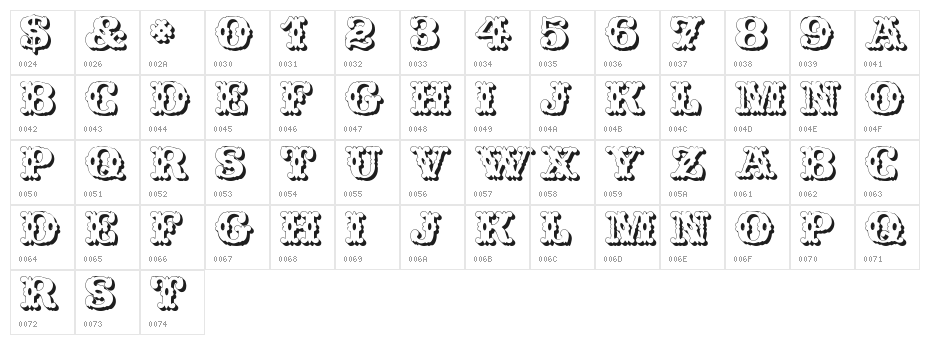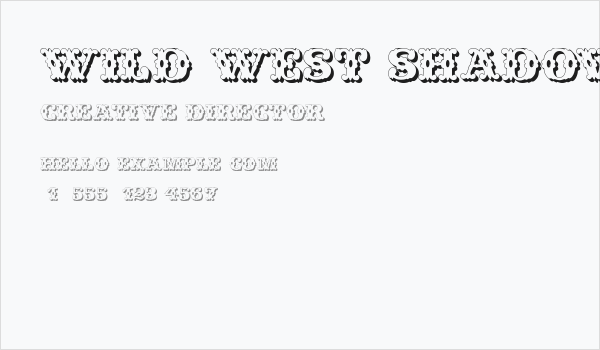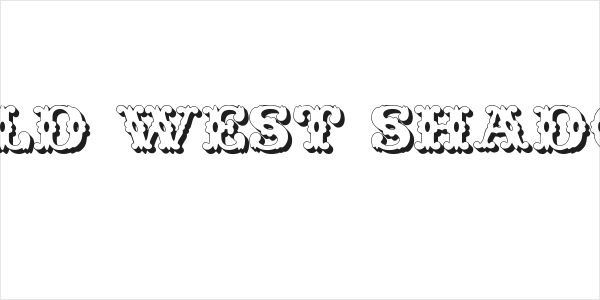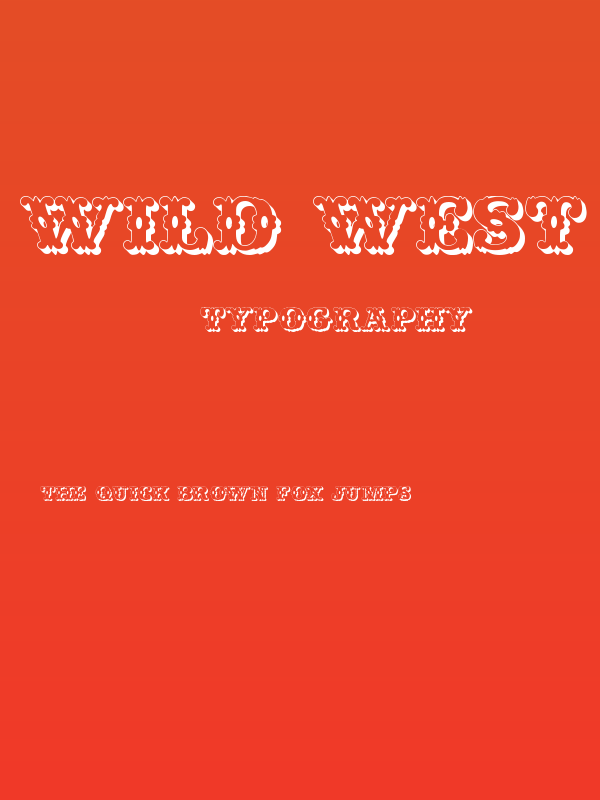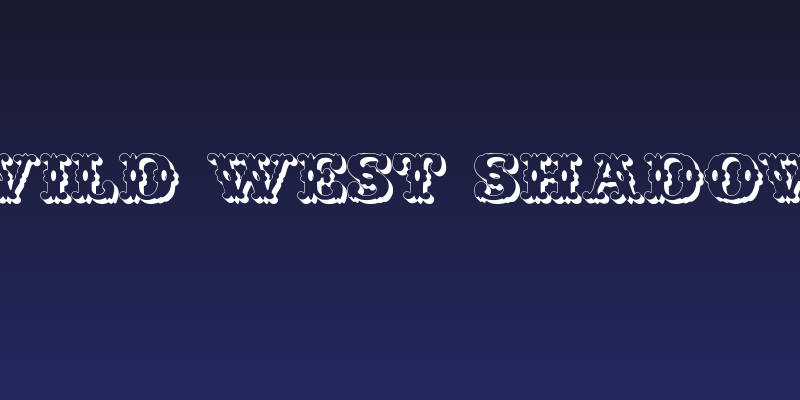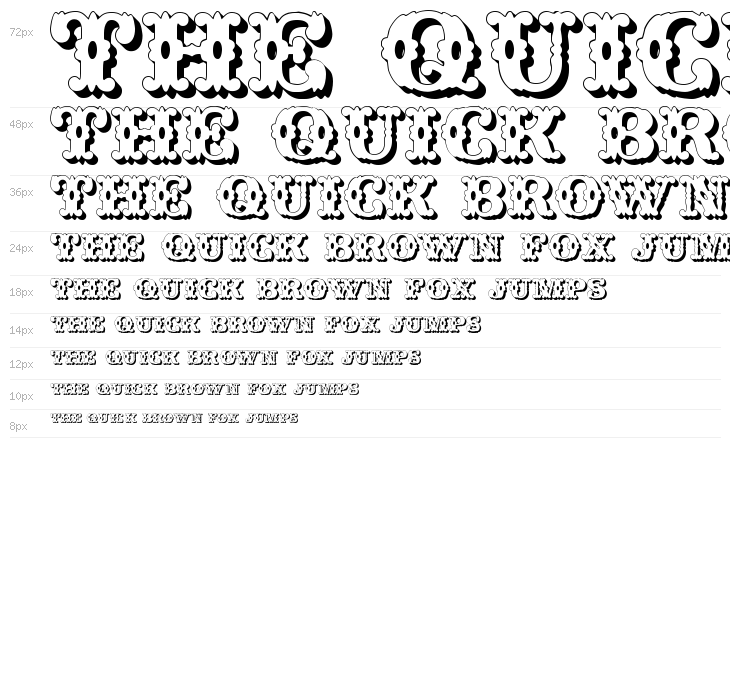
Wild West Shadow Font
Wild West Shadow Description
This font features a bold, decorative style with a distinct shadow effect that gives it a three-dimensional appearance. The characters are designed with a playful, western-inspired aesthetic, characterized by thick, rounded edges and a strong presence. The shadowing adds depth and enhances the visual impact, making it ideal for eye-catching designs. Each letter and number is crafted with attention to detail, ensuring consistency across the entire set. The special characters maintain the same bold and shadowed style, providing a cohesive look for any project.
Proposed ProjectsIdeal for posters, logos, event invitations, and themed party decorations.